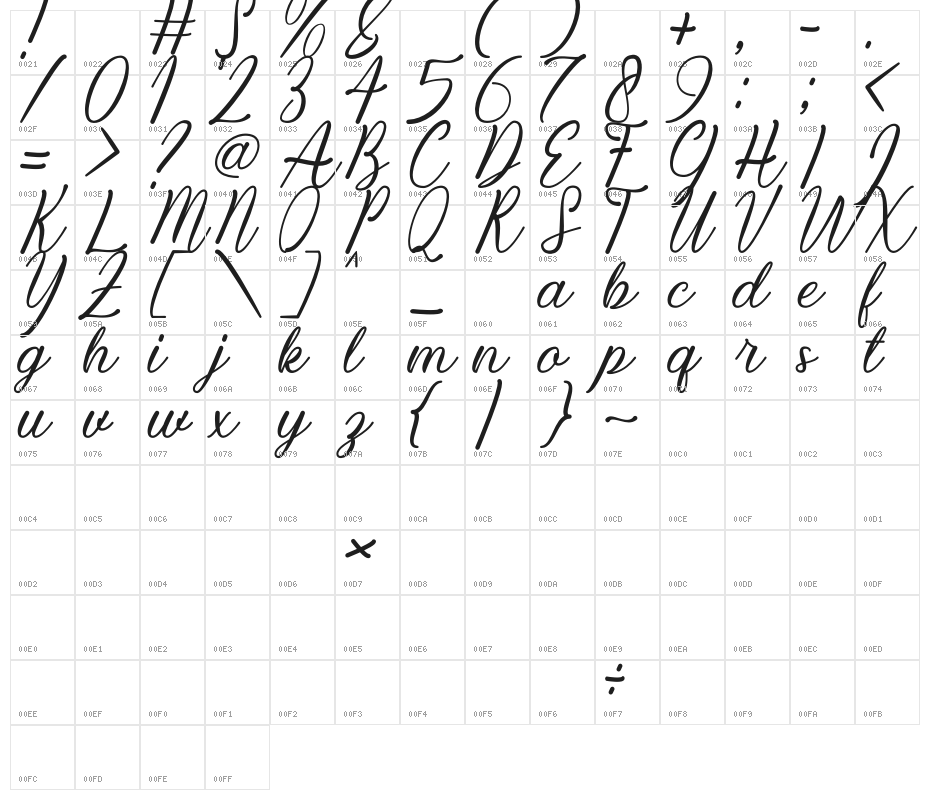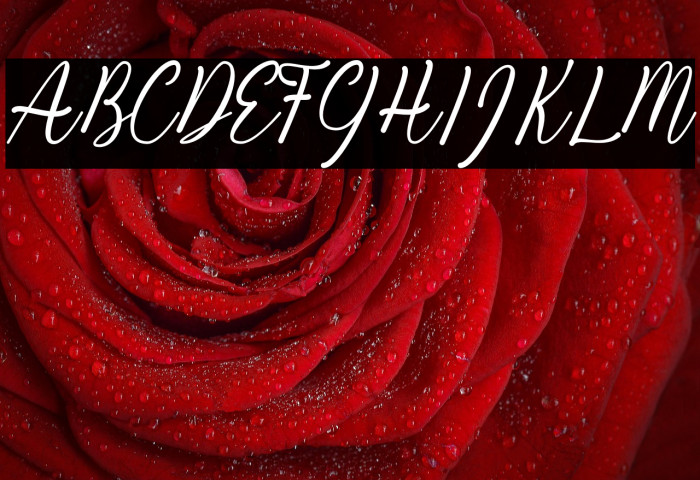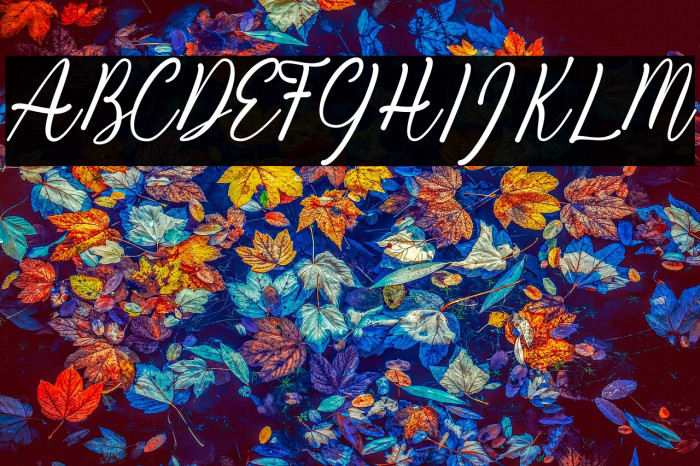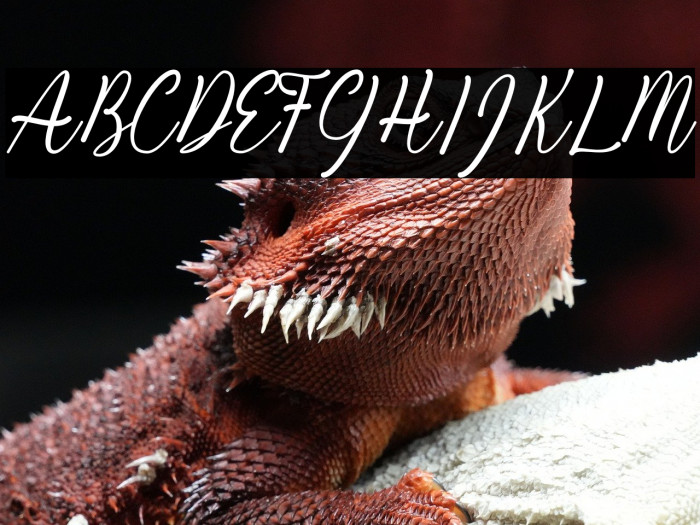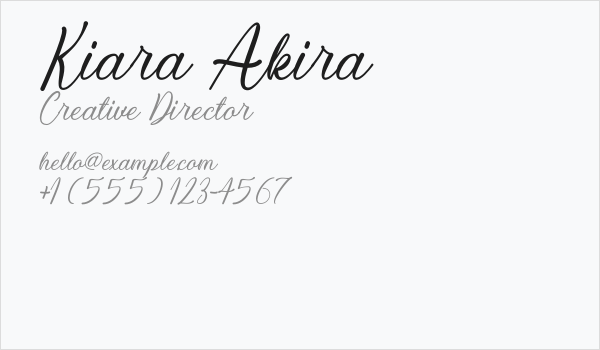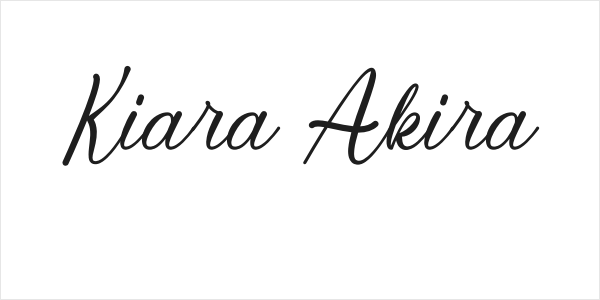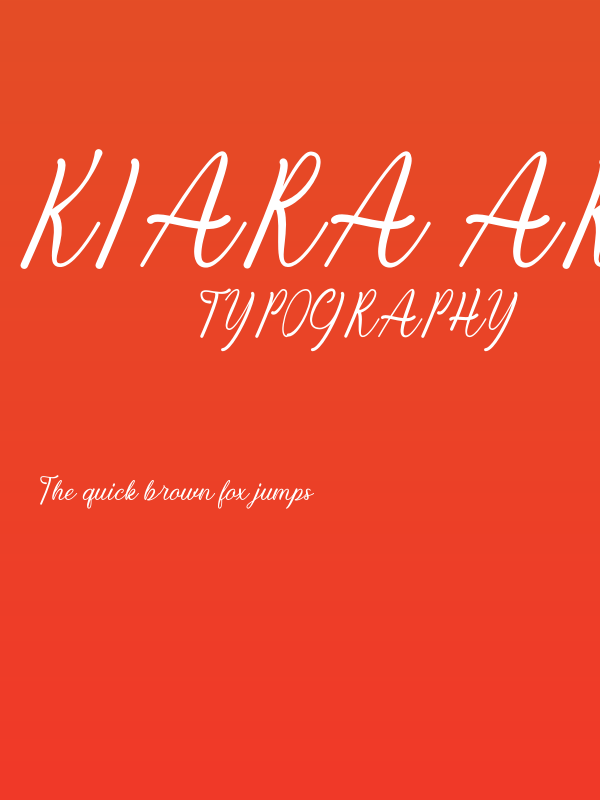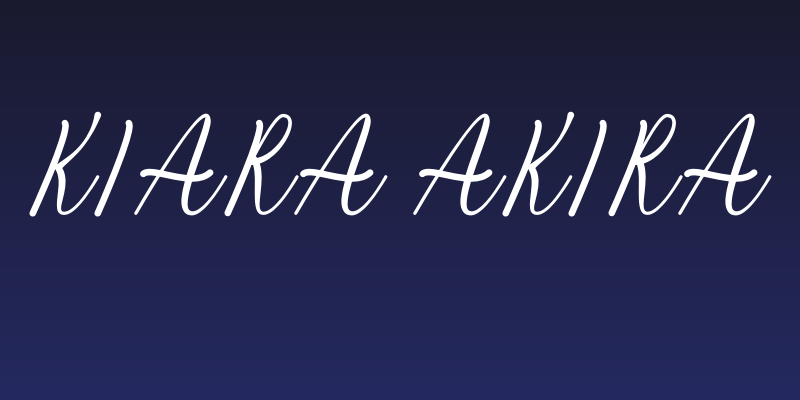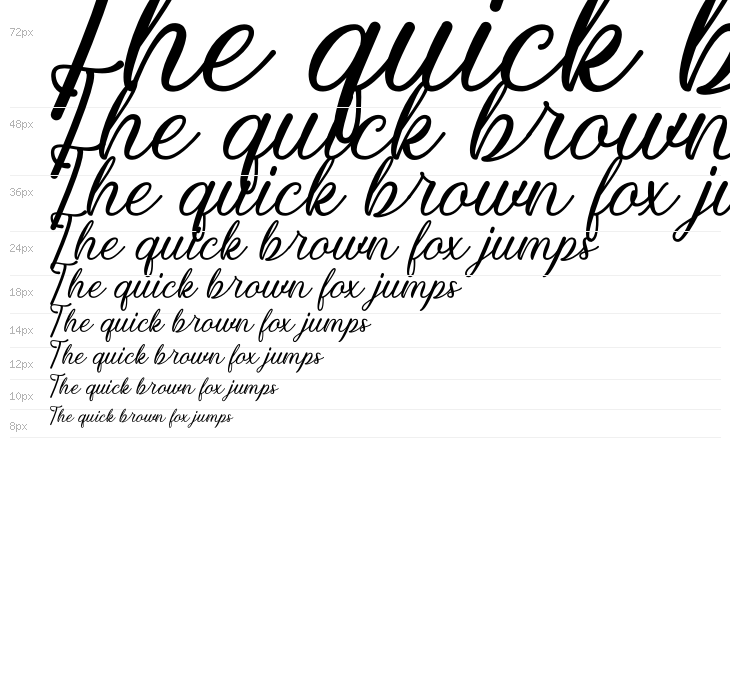
Kiara Akira Font
Kiara Akira Description
This elegant script font features fluid, connected strokes that mimic the natural flow of handwriting. The uppercase letters are slightly larger and more ornate, providing a graceful contrast to the more understated lowercase characters. The numbers and special characters maintain the same fluidity, ensuring a cohesive look across all text. The font's design is characterized by its smooth curves and consistent line thickness, which adds a touch of sophistication and charm. The overall appearance is both stylish and readable, making it suitable for a variety of design applications.